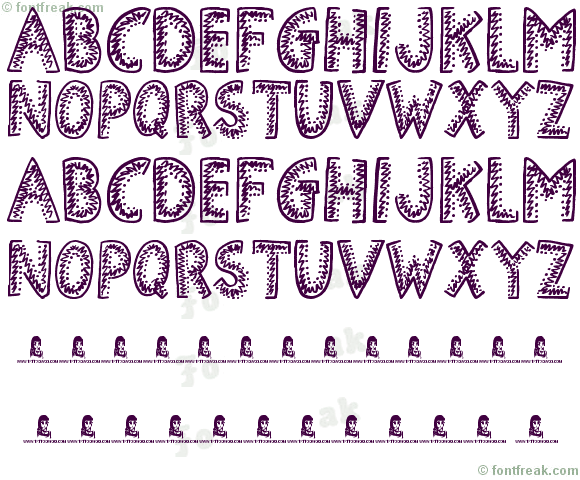
Demolished
Demolished — Character Map
About Demolished
The Demolished font by Jonathan S. Harris is a unique display typeface that captures attention with its distinctive, rugged aesthetic. This font falls into the decorative category, characterized by its playful and slightly chaotic appearance, making it ideal for projects that require a bold statement. The visual style features irregular stroke weights, giving it a hand-drawn feel, while the contrasting elements create a lively texture that draws the eye. The spacing between letters is well-balanced, ensuring readability without sacrificing its artistic flair.
Demolished is particularly well-suited for a variety of creative applications. It shines in contexts like movie posters, where its edgy vibe can evoke a sense of intrigue and excitement. This font also works wonderfully for music event flyers, capturing the raw energy of live performances. Additionally, it can enhance branding for craft breweries or artisanal food products, where a rustic touch can appeal to the target audience. For those involved in graphic design, small business ownership, or content creation, incorporating the Demolished font can add a memorable element to their visual projects.
What sets the Demolished font apart is its ability to blend a sense of fun with artistic expression. Its unique characteristics make it a versatile choice for designers looking to infuse their work with personality and flair. Whether you're creating promotional materials or designing a logo, the Demolished font free download offers an opportunity to stand out in a crowded market. With its charmingly imperfect style, this font is sure to leave a lasting impression on anyone who encounters it.